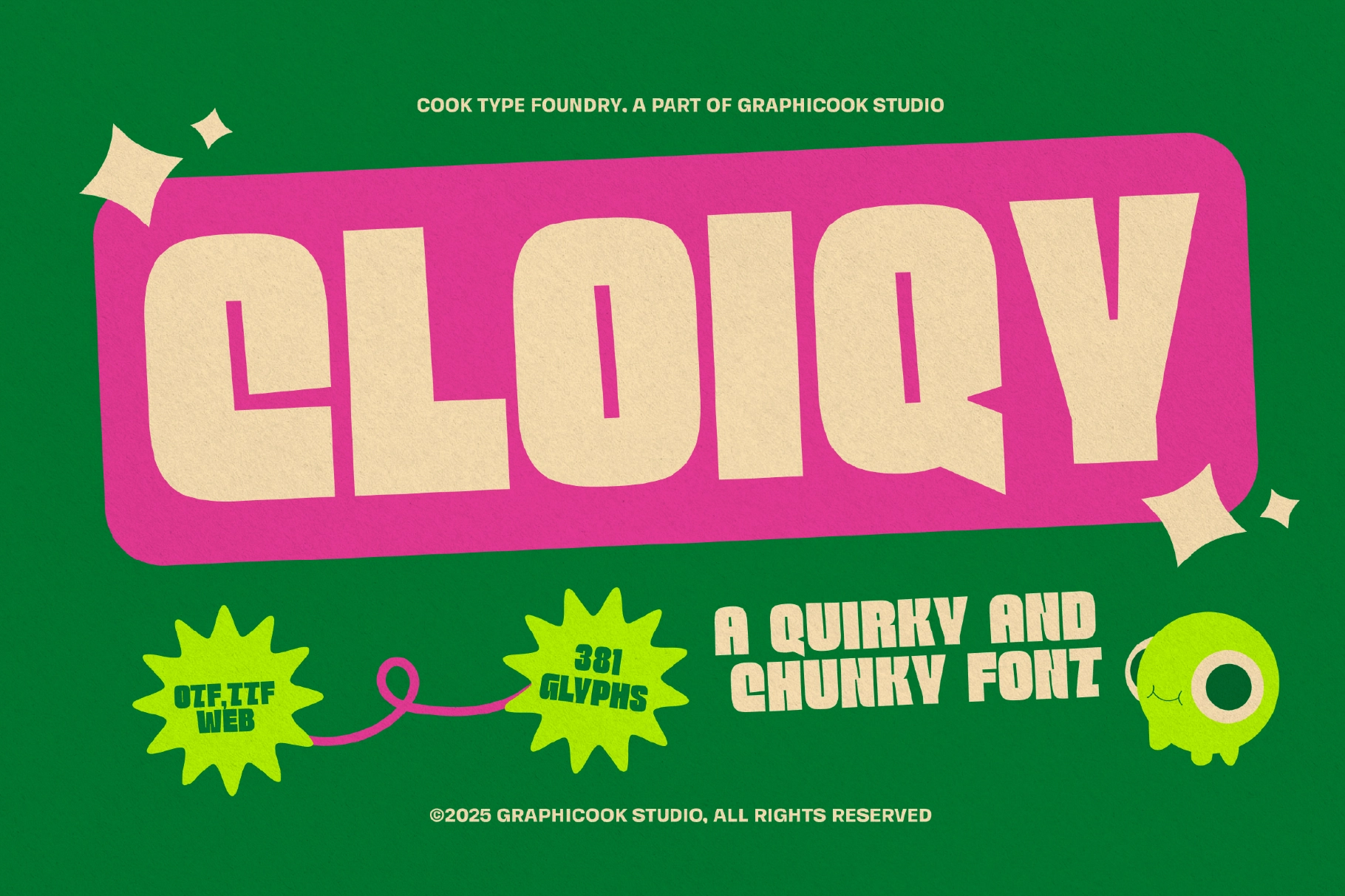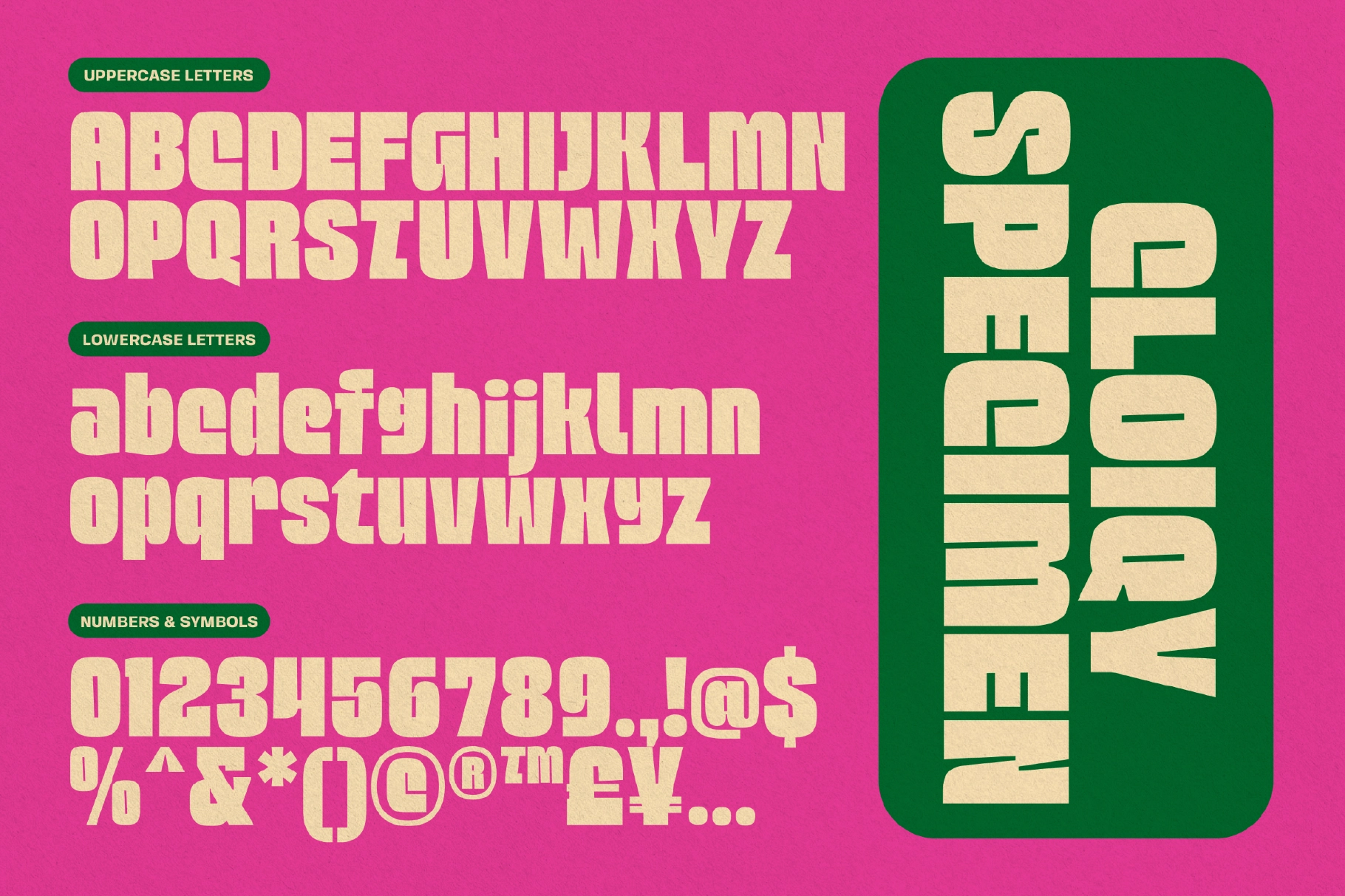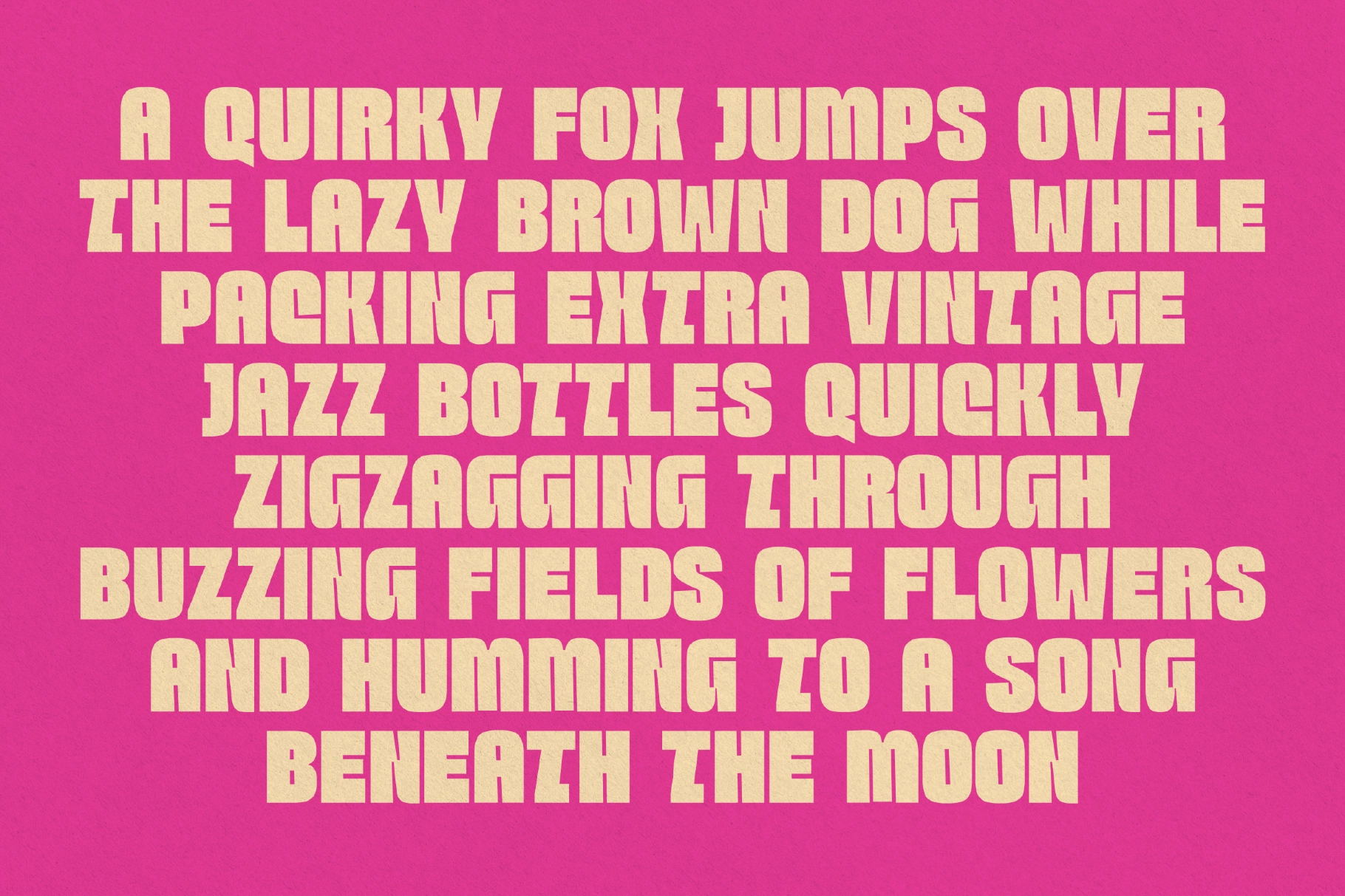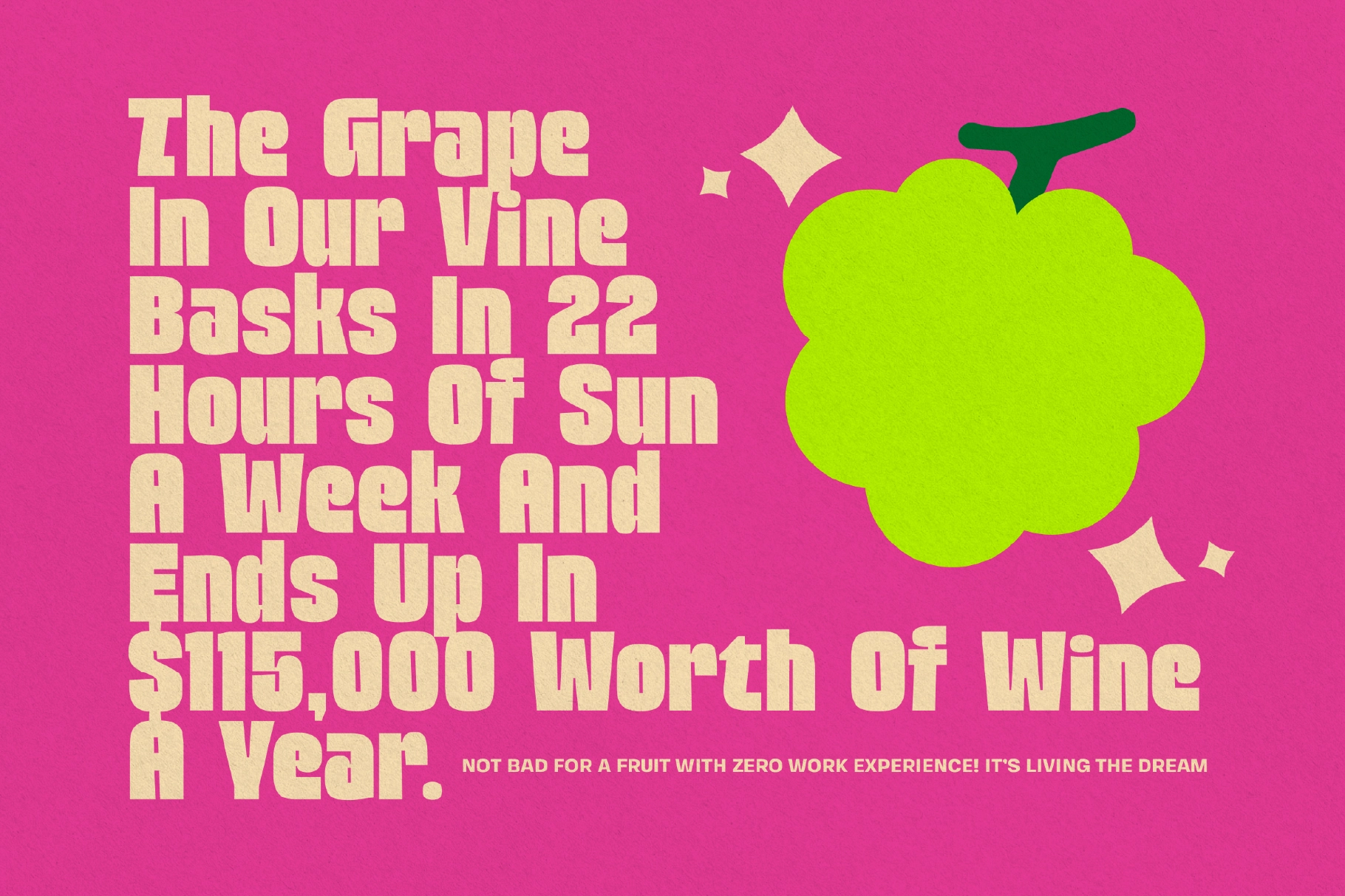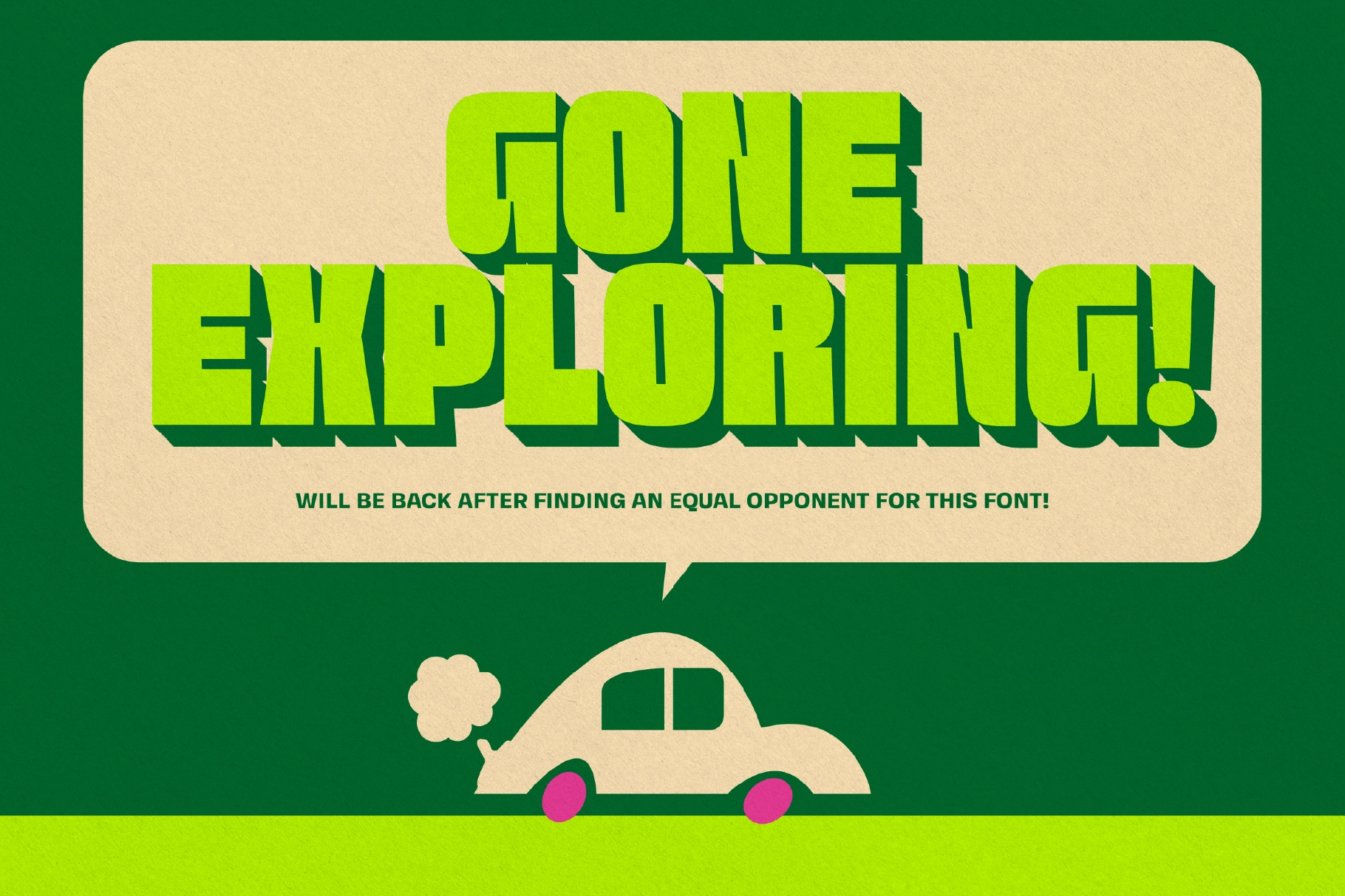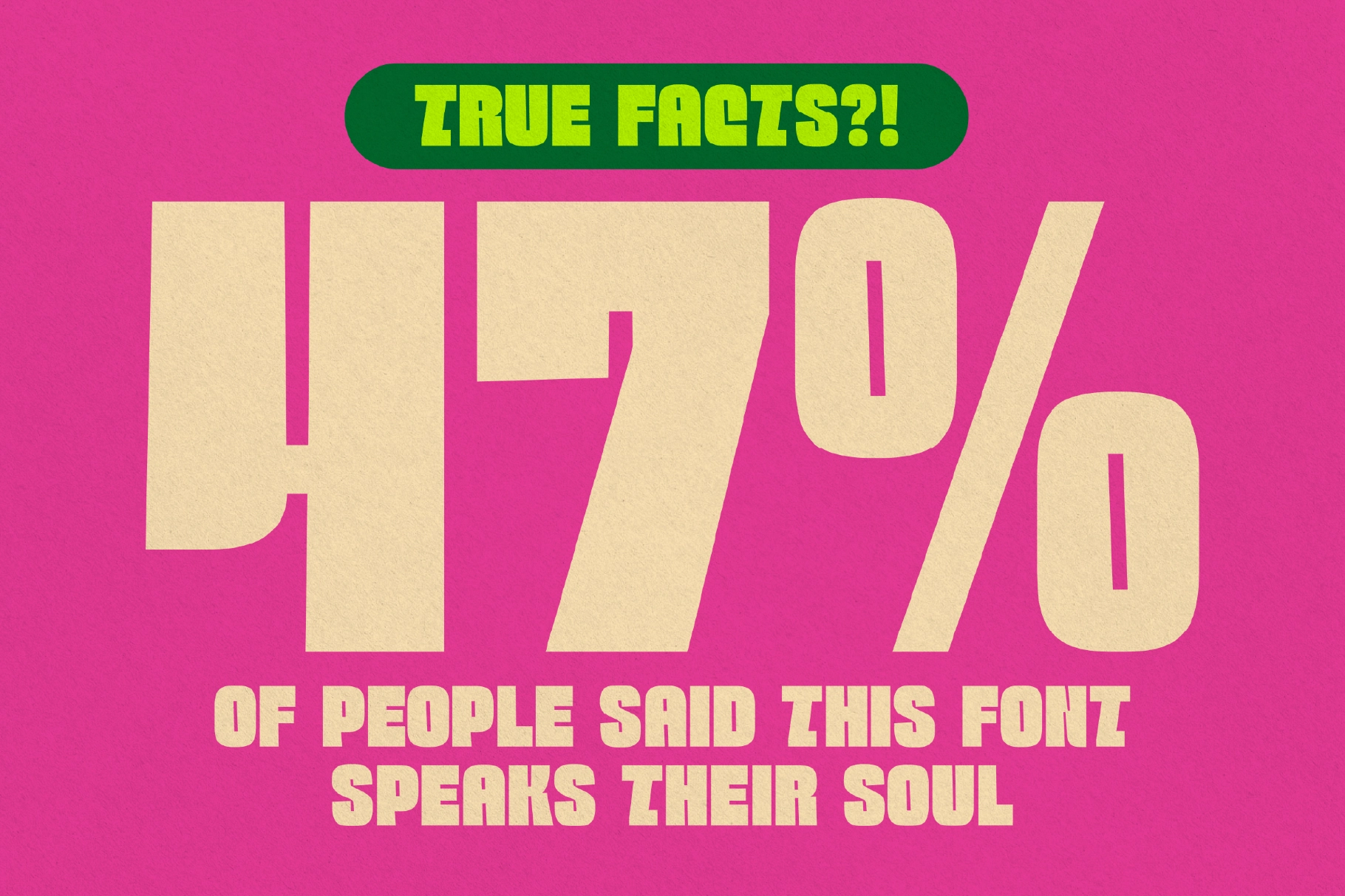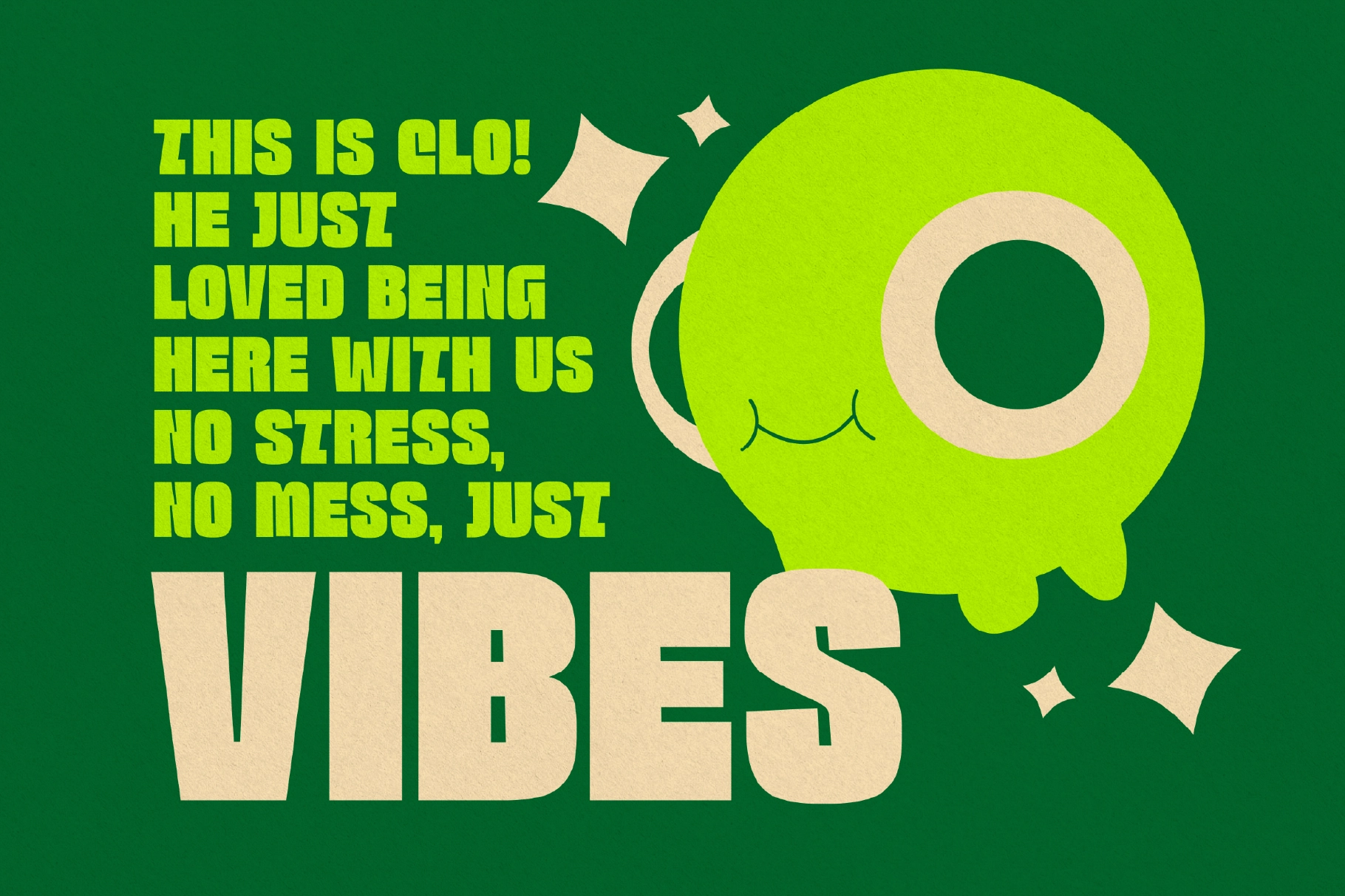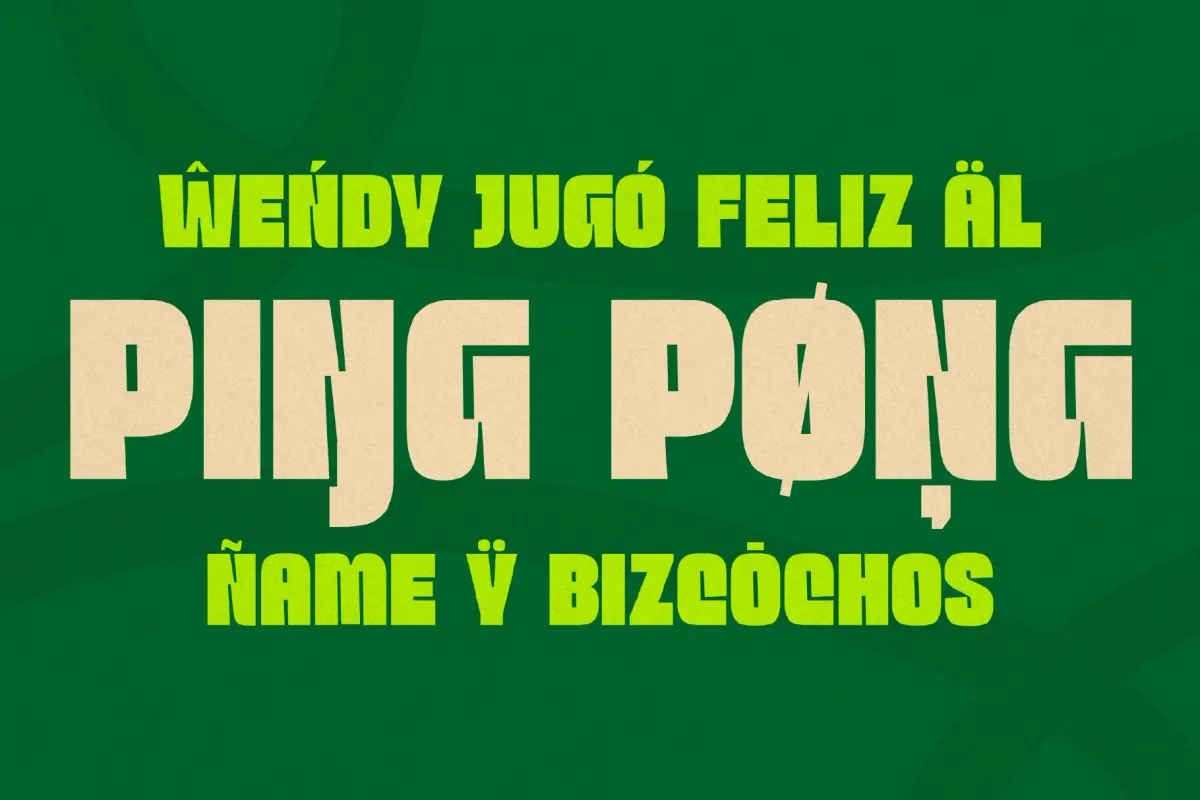
Cloiqy Font
Cloiqy
Cloiqy is a bold display font with a unique and precise character. Its playful yet impactful design makes it perfect for branding, posters, and any project that needs a bold visual statement.